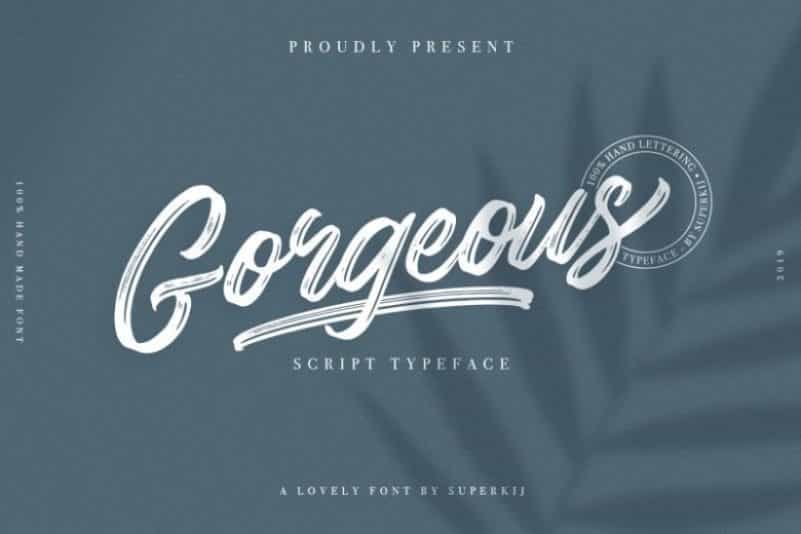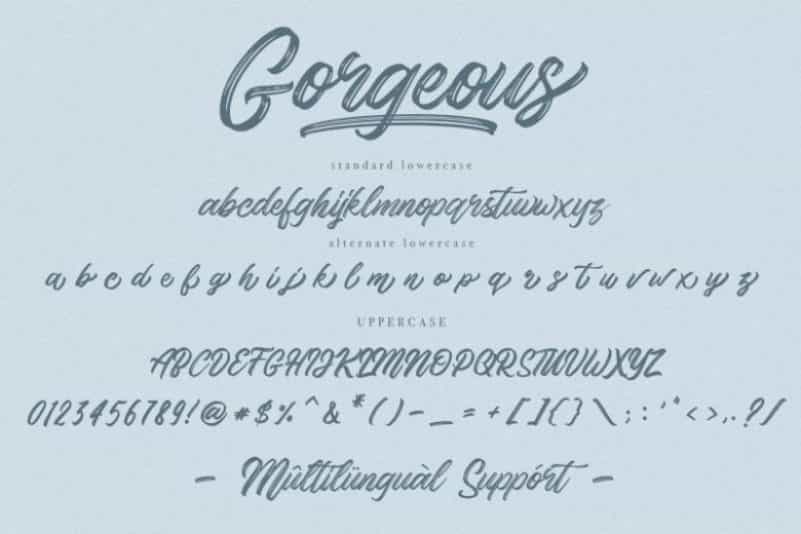
Gorgeous Font created and distributed by Adhi Nugraha. It’s a rough textured brush font. It can also be applied to many schemes like invitations, social media, stationery, logos, weddings, branding, graphic design, with extra swashes. and can be paired with any serif type style that best fits the project you want to work on.